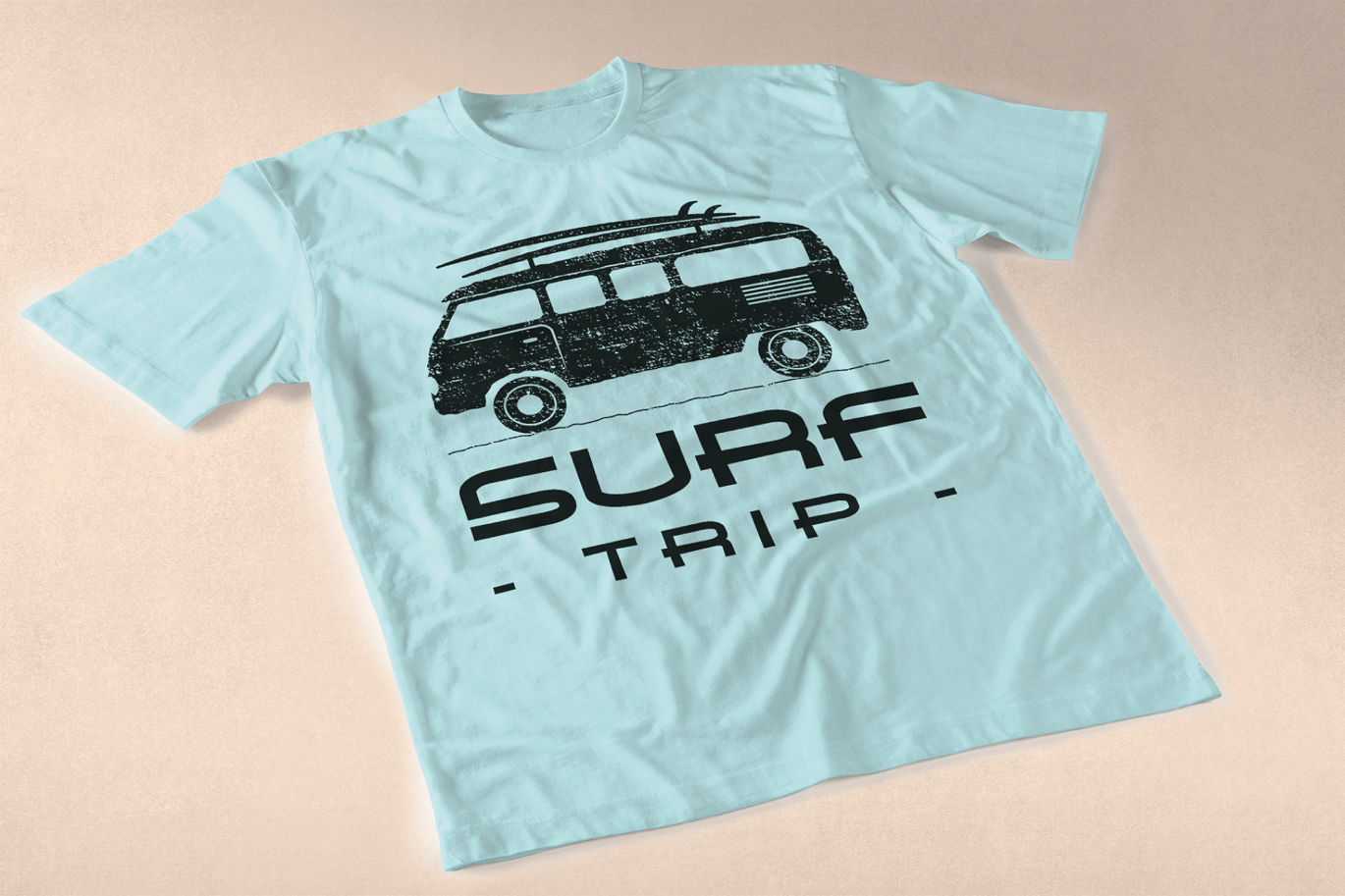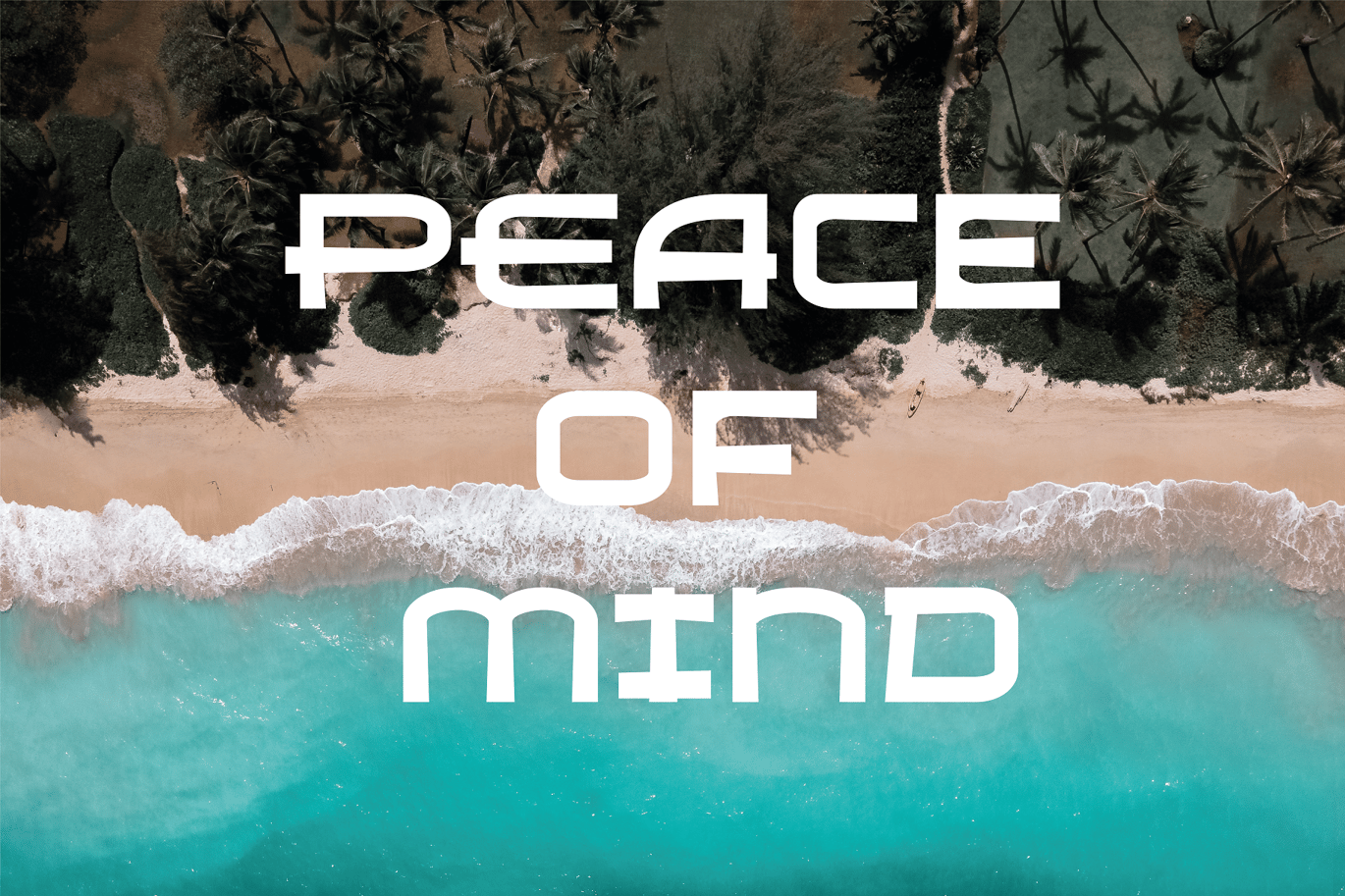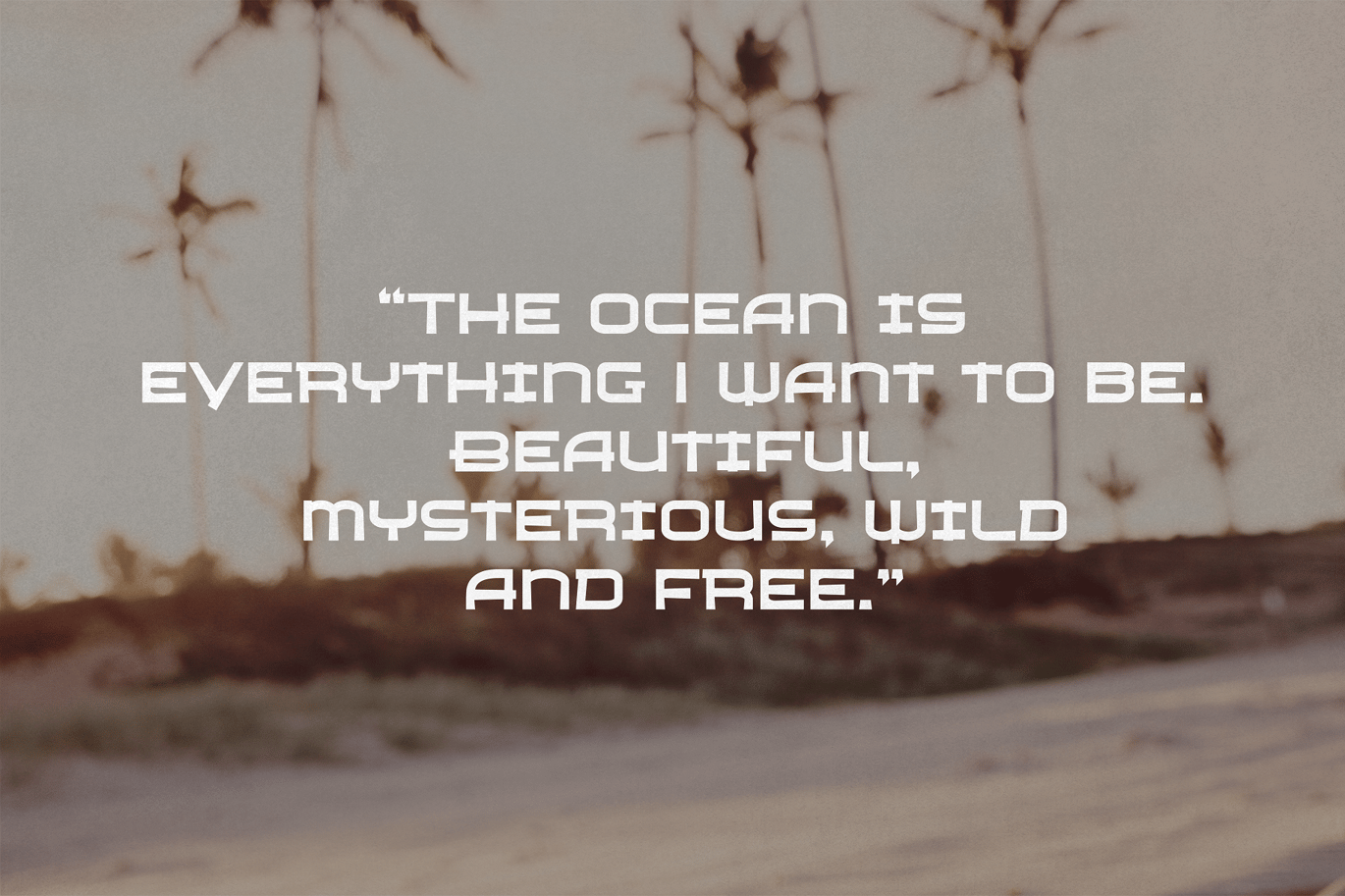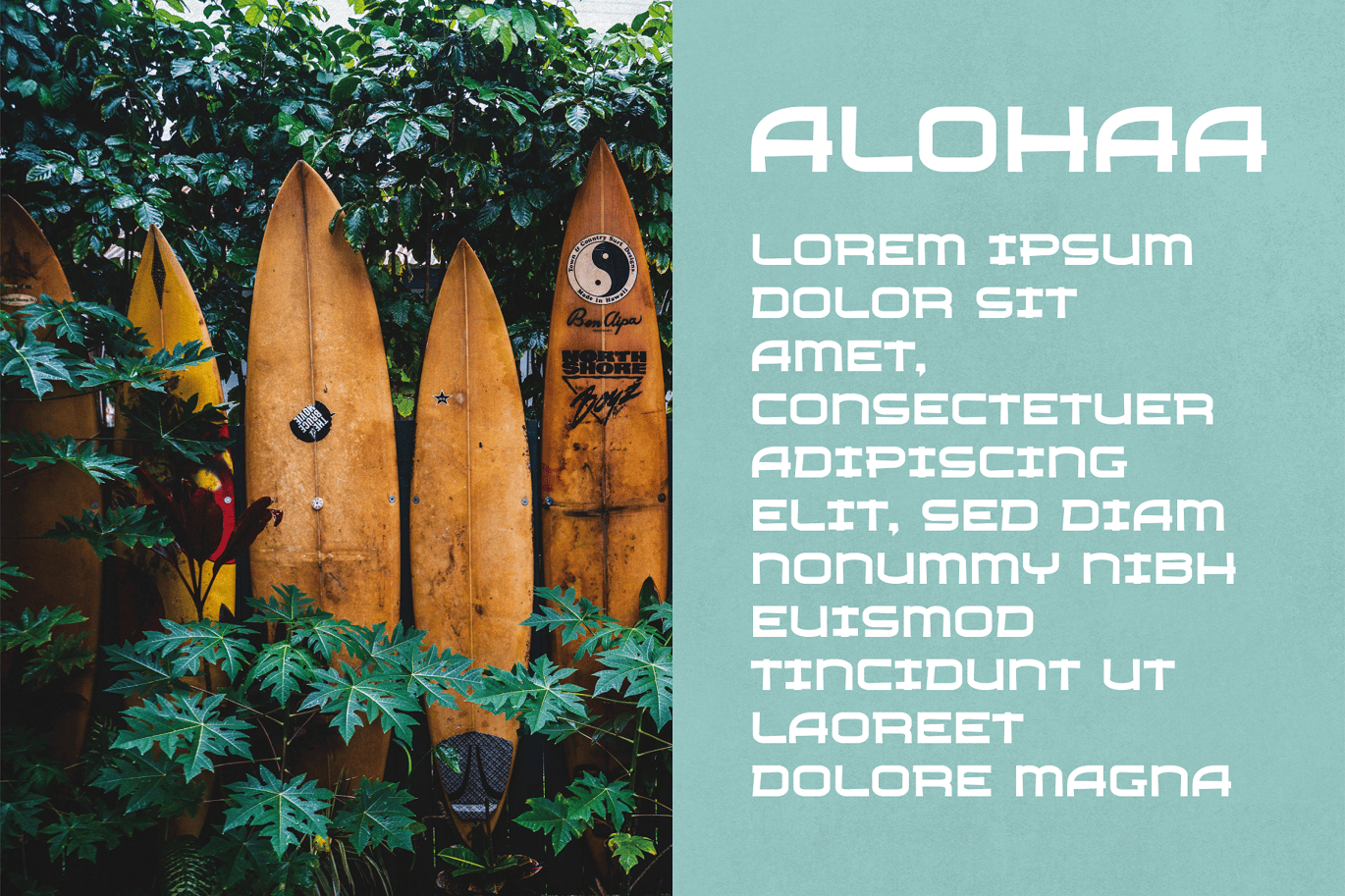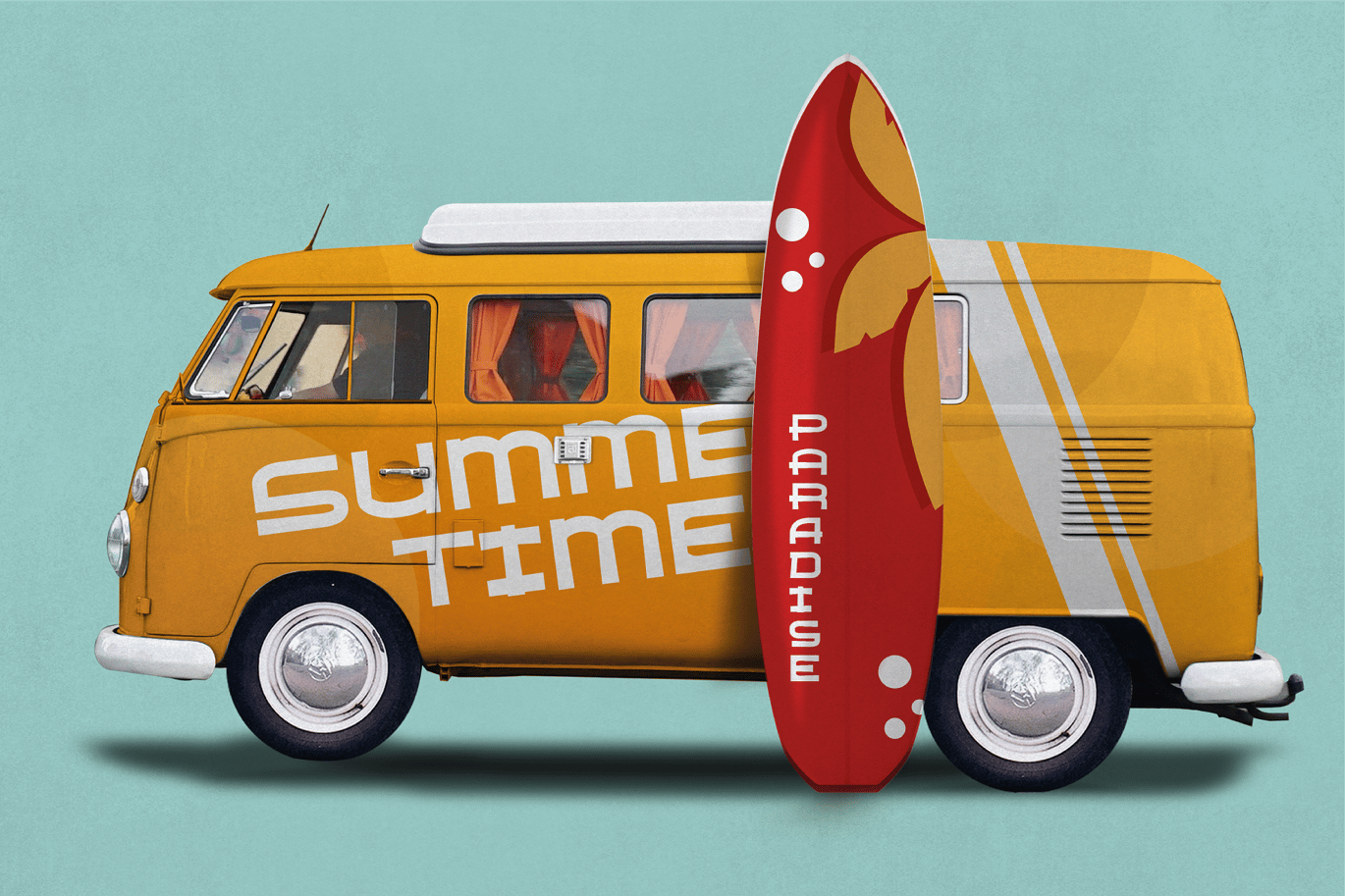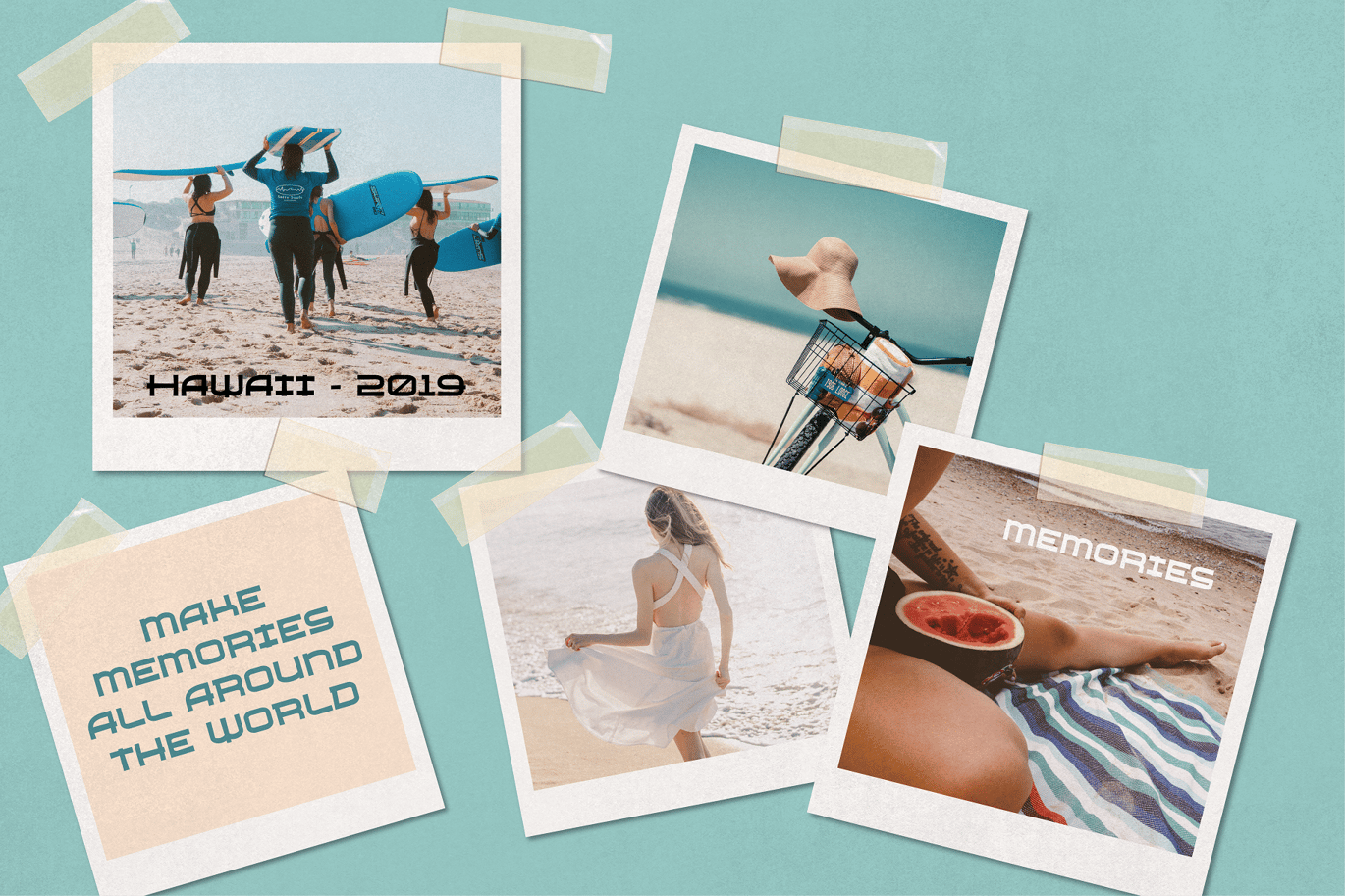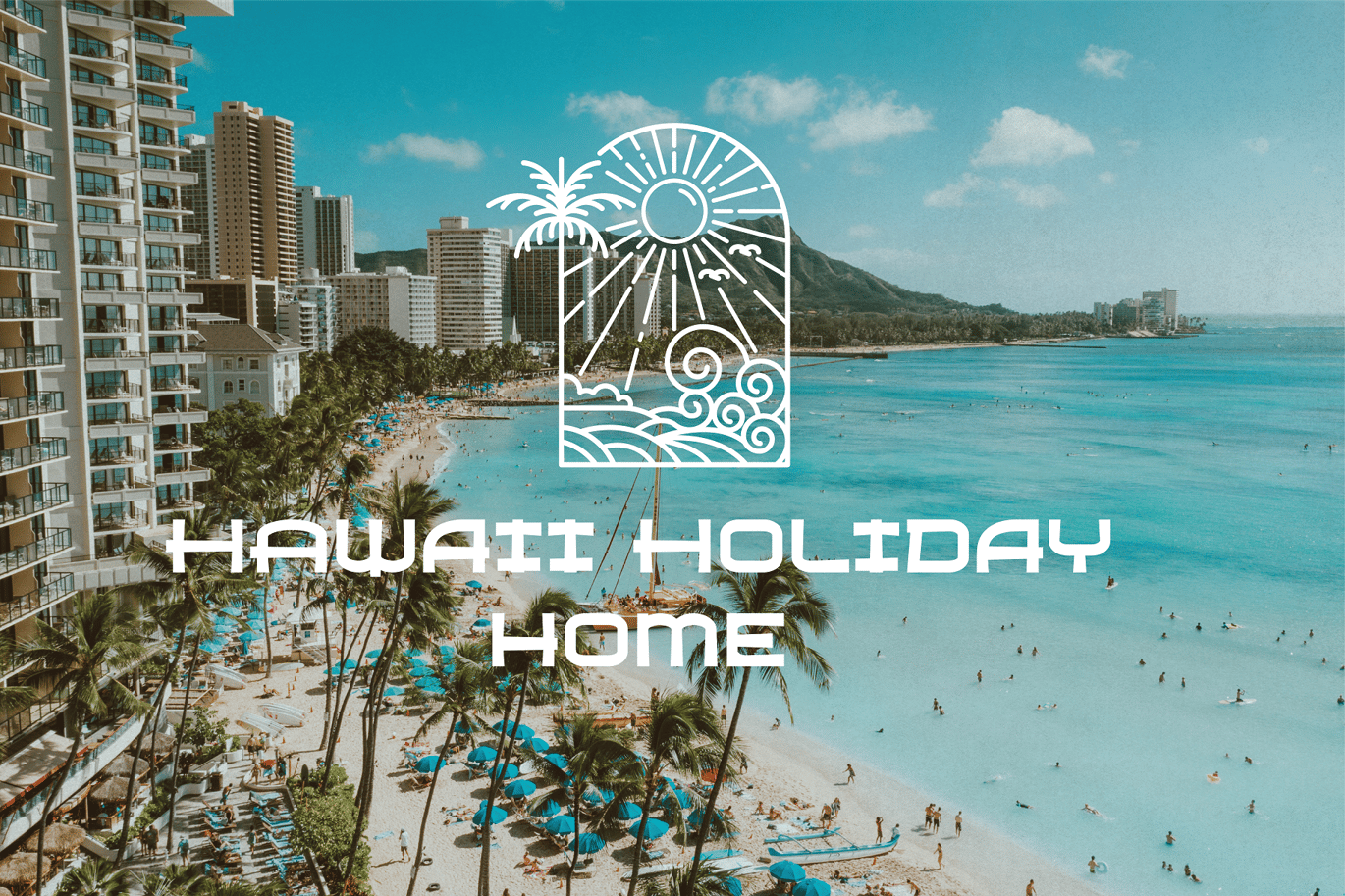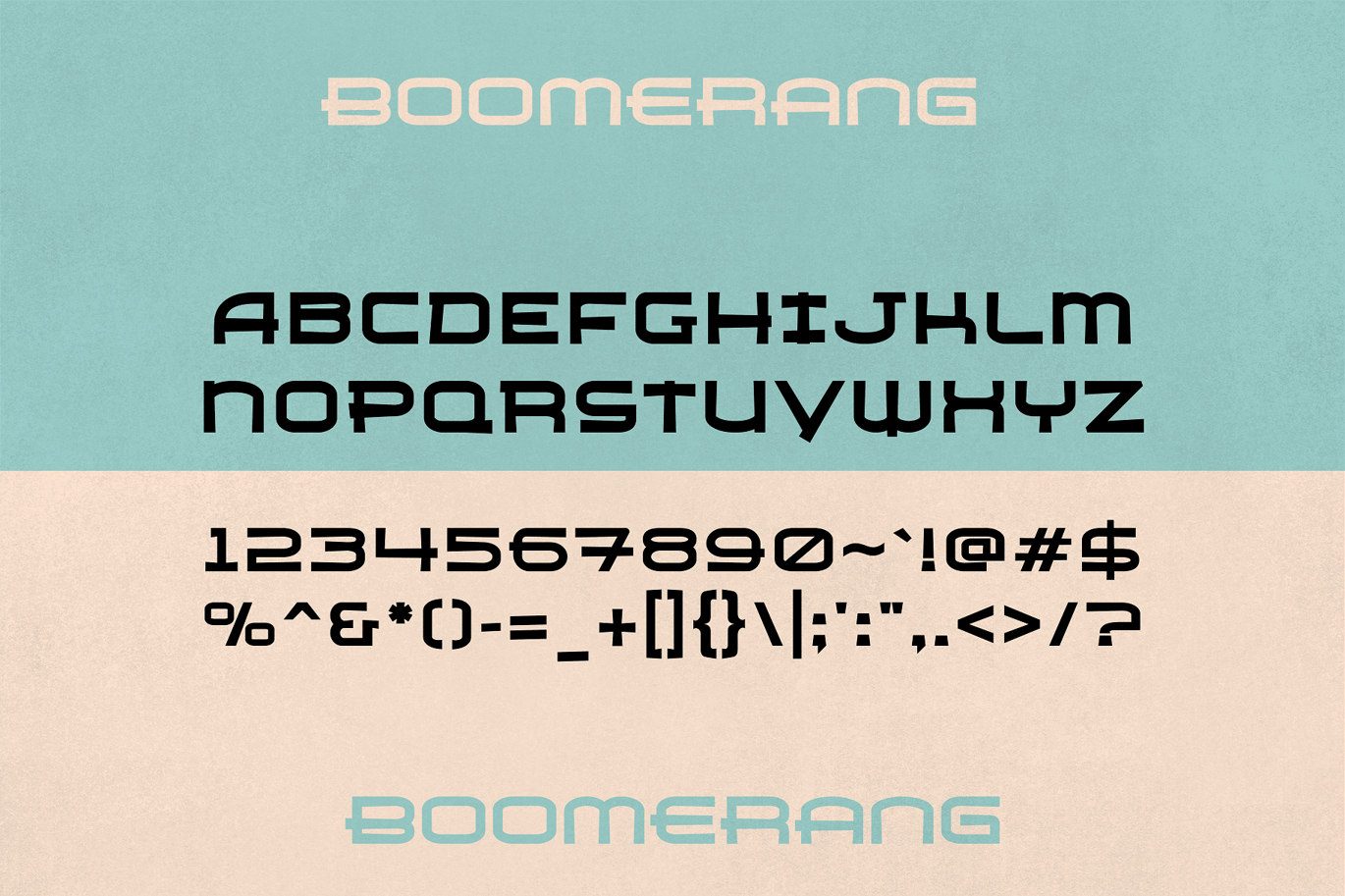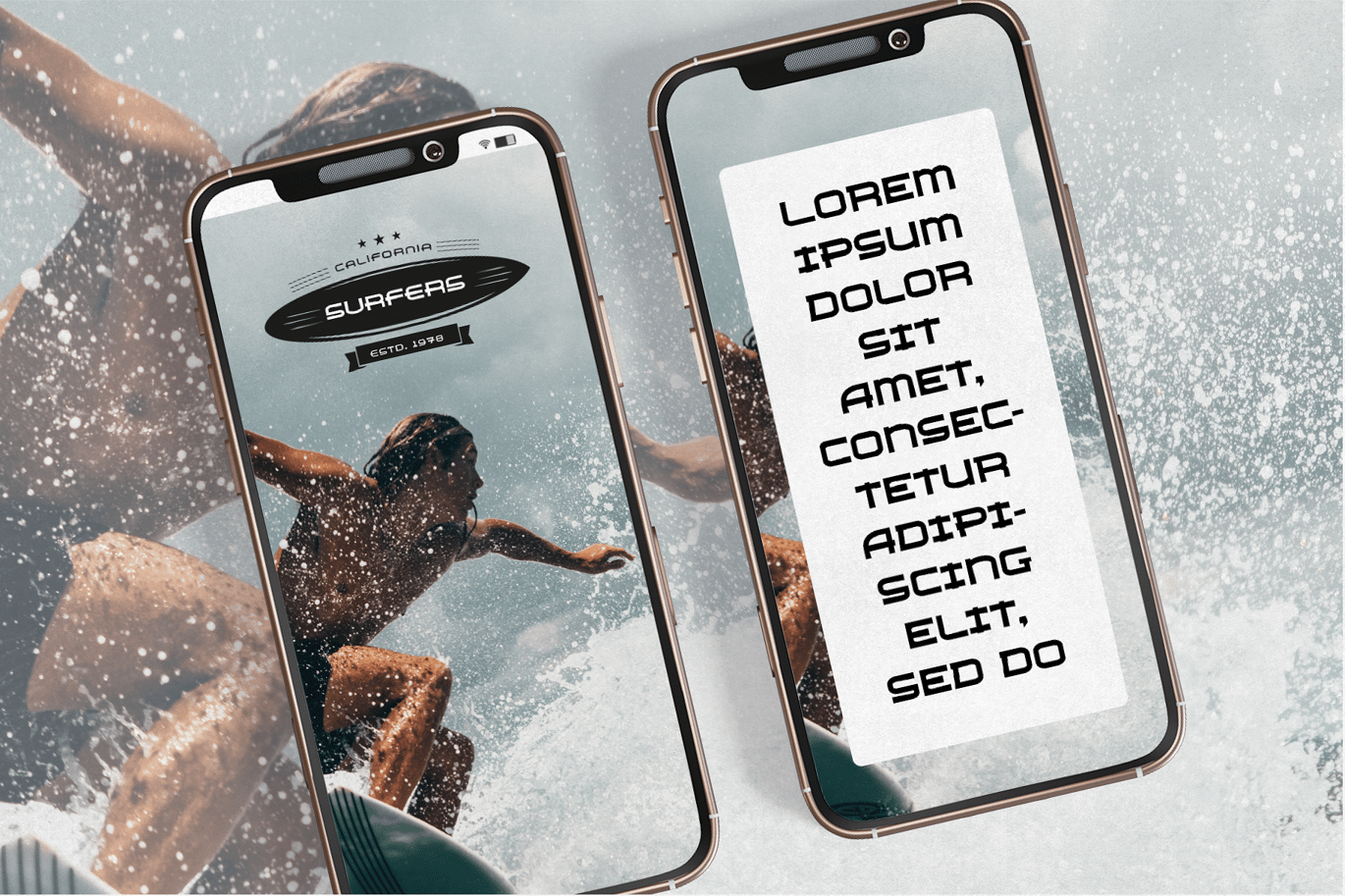
Boomerang – Hawaiian Typeface
Boomerang is an all caps Hawaiian inspired typeface. This mid century inspired font is perfect advertisings, branding, album covers, apparel, business cards, flyers, invitations, menus, merchandise, packaging, web, signage, and more. If your project requires a tropical/beach vibe, then Boomerang is perfect for you!